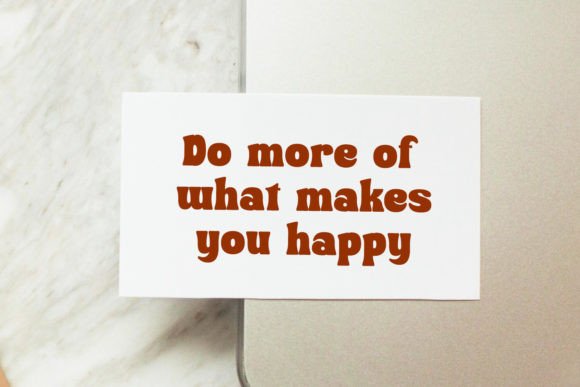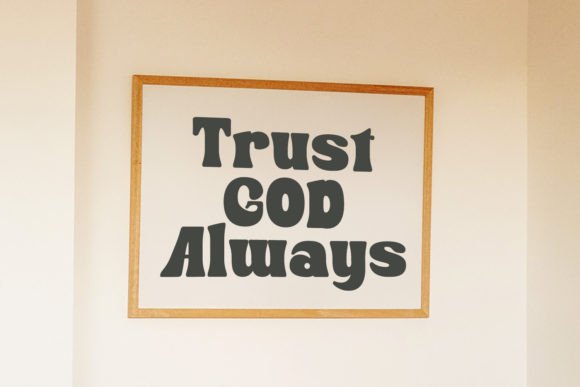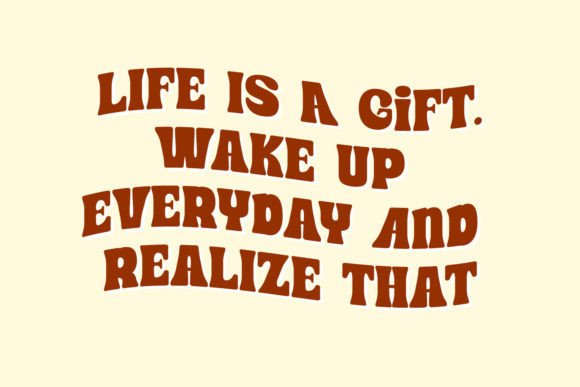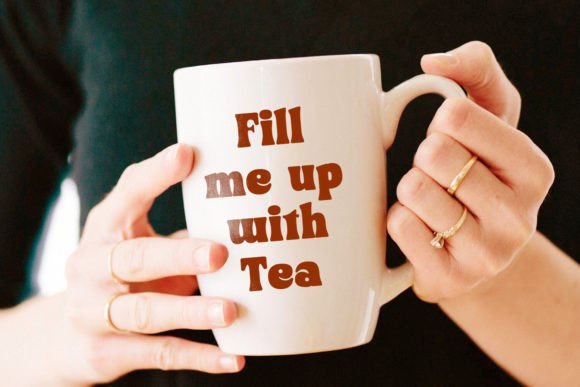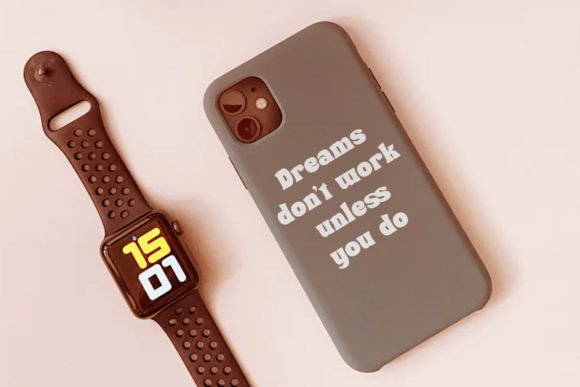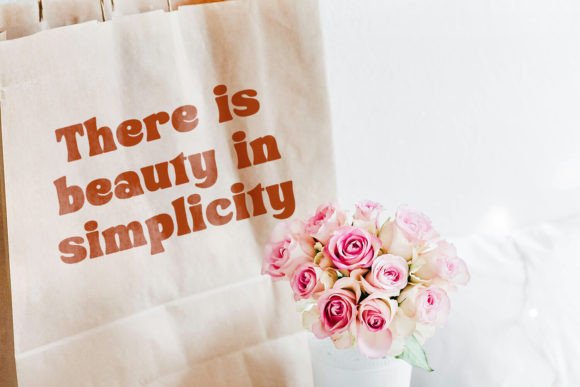
Introduction to Pastry Waffle Font
Have you ever been browsing through a design project and stumbled upon a font that instantly elevates the entire aesthetic? For many designers, this is a moment of pure joy – the moment when the perfect font comes together with the perfect creative vision. For those seeking a high-quality design resource that makes a statement, look no further than the Pastry Waffle Font.
With its bold and contemporary serif design, Pastry Waffle Font is a game-changer for any creative project. Whether you’re working on a branding project or a digital campaign, this font is sure to bring your design to life with its striking presence and modern style. Plus, with a transparent background, your design will truly shine – and the best part? It’s available for free download, making it an invaluable resource for designers of all levels.
Key Features of Pastry Waffle Font
- High-quality design resource perfect for creative projects, offering a unique and playful twist to any design.
- Features a transparent background, allowing for seamless integration with any design or background.
- Offers a high-resolution design, perfect for printing or using in high-resolution digital projects.
- The Pastry Waffle Font is a one-of-a-kind design resource, perfect for adding a touch of whimsy to any creative project.
- Perfect for designers, artists, and crafters looking for a unique and high-quality design element to elevate their work.
Honest Review: Pastry Waffle Font
As a designer, I’m always on the lookout for high-quality design resources that can elevate my creative projects. Recently, I had the chance to work with the Pastry Waffle Font, and I’m excited to share my honest review with you.
- ✨ Unique and playful design that adds a fun touch to any project
- ✨ High-quality vectors that are perfect for digital use
- ✨ Transparent background makes it easy to customize and combine with other elements
- ⚠️ Limited character set, which might be a issue for more extensive projects
- ⚠️ Not ideal for use in very small sizes, as the font can become pixelated
Overall, I’m impressed with the Pastry Waffle Font. It’s a great addition to any designer’s toolkit, especially for creative projects that require a fun and playful touch. While it has some limitations, I believe its unique design and high-quality vectors make it a valuable resource worth considering.
How to Use Pastry Waffle Font
The Pastry Waffle Font is a high-quality design resource ideal for creative projects. It features a transparent background, making it versatile for various applications. This free download is perfect for designers and non-designers alike, offering a unique touch to any project.
Tips for Getting the Most Out of Pastry Waffle Font
To get the most out of the Pastry Waffle Font, experiment with different text sizes, colors, and combinations to achieve the desired effect.
The Pastry Waffle Font is perfect for:
- Food and beverage branding
- Wedding invitations and decorations
- Blog posts and social media graphics